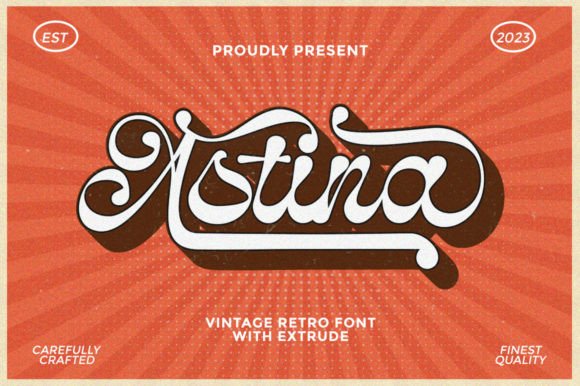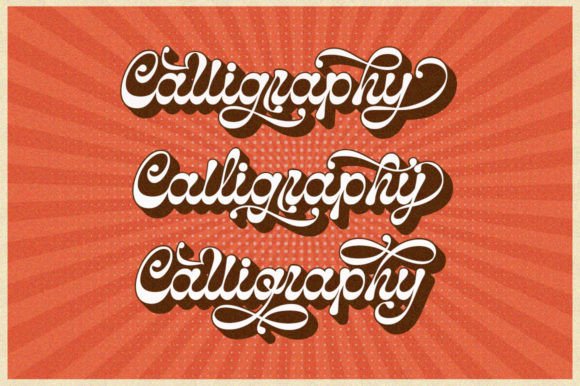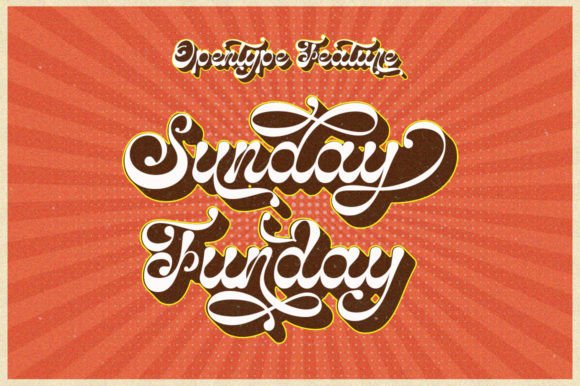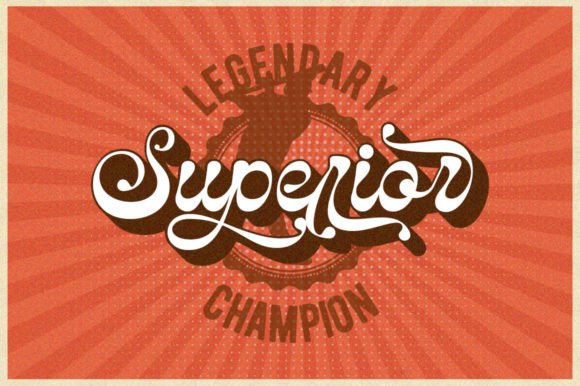
Astina Font: Groovy Retro Calligraphy for Eye-Catching Titles!
About the Astina Font
Experience the unique personality of Astina Font, a font designed for impact. Astina feels playfully nostalgic and delivers an incredible vintage aesthetic. Use this font to add that special retro touch to any design idea you can think of!
Astina’s playful vintage aesthetic makes it ideal for headlines, short-form text in posters, branding elements like logos and short taglines, and packaging design where a retro feel is desired. It’s less suitable for body text or UI elements due to its decorative nature; legibility suffers at smaller sizes and in extended passages.
Pairing Astina effectively requires considering its playful energy. A clean sans-serif like Montserrat or Lato would provide a strong, modern counterpoint, balancing its vintage charm. Alternatively, a more traditional serif such as Playfair Display could enhance the nostalgic feel, creating a cohesive yet varied design.
Astina’s overall personality is best described as playful and nostalgic, with a hint of boldness. Its retro style makes it a strong choice for brands seeking a vintage or retro aesthetic, particularly in the food, beverage, fashion, or entertainment industries.